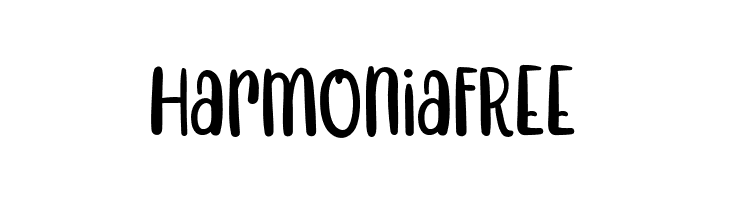
A bold, flowing script font with elegant, rounded characters.
A bold, geometric font with a modern, industrial style.
A playful, bold font with rounded, irregular letterforms.
A playful handwritten font with fluid strokes and a casual elegance.
Casual handwritten font with a friendly look.
Casual handwritten script with rounded, smooth strokes.
Bold display font with antler decorations for a festive look.
Bold decorative font with festive star patterns and strong outlines.
Festive, bold display font with Santa-themed decorations.
Festive, bold display font with snowflake and star decorations.
Bold, festive display font with decorative holiday patterns.
Festive, patterned display font with bold, outlined characters.
Bold, festive display font with jagged, playful edges.
A bold, playful font with thick, rounded strokes and a vintage charm.
A classic yet modern font with elegant, bold uppercase and harmonious lowercase letters.
A decorative font with historical charm and intricate details.
A playful, organic font with rounded, flowing shapes and a whimsical charm.
A whimsical and decorative font with playful curves and charming details.